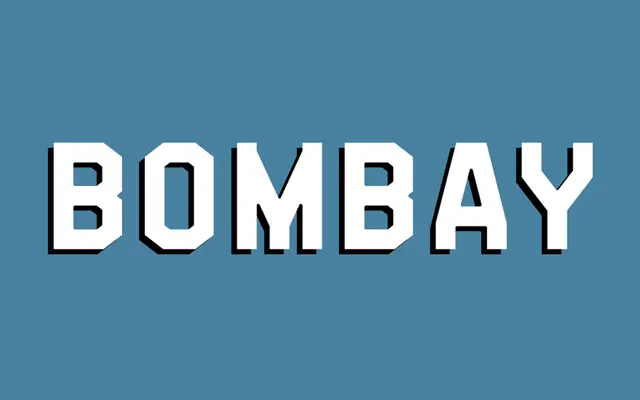
A single-weight monospaced typeface from Indian Type Foundry, offered as a standalone font for code or technical use.
A monospaced design sold as a single font, positioned within ITF's broader catalogue alongside related families such as Monorama. The page offers little detail on its design origins or intended applications, but its classification and pricing place it in the professional mono segment. Related family Monorama suggests a broader mono design interest at the foundry.
Listed explicitly under the Mono classification by Indian Type Foundry; the name and single-style offering confirm a monospaced design with no variable or proportional cuts.